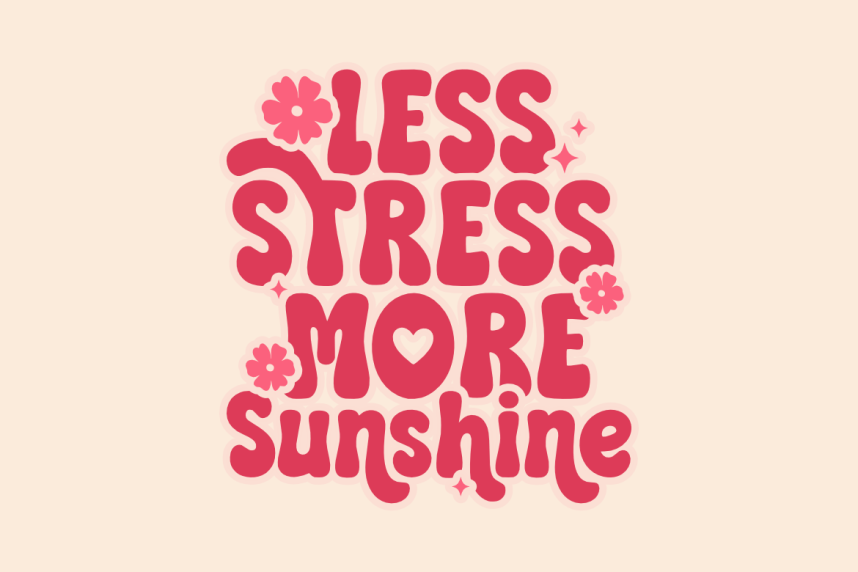
Bubble Month Font is a cute bubble display font that radiates playful energy, optimism, and joy. Featuring chunky, rounded letterforms accented with charming heart and flower details, this typeface is specifically crafted to add a whimsical and affectionate touch to your creative projects. Its clean and solid construction is optimized for the crafting community, ensuring a seamless and frustration-free experience for vinyl cutting, sublimation, and high-quality digital printing.